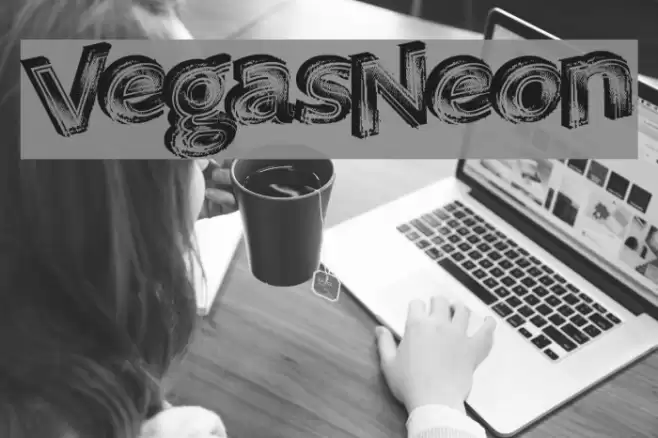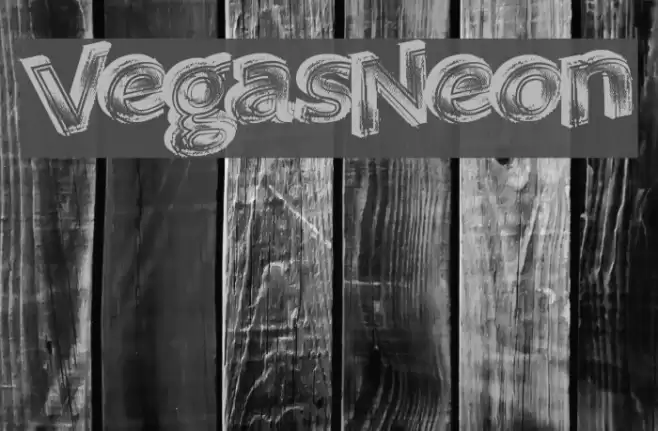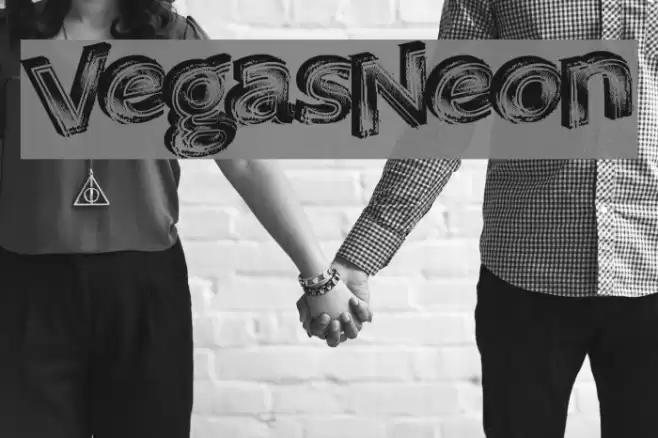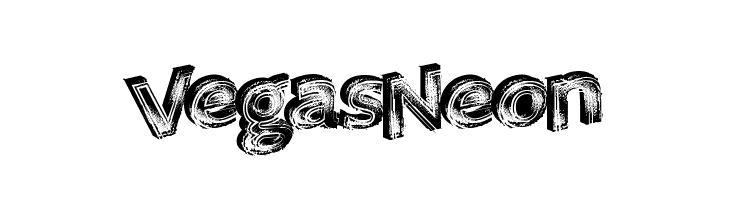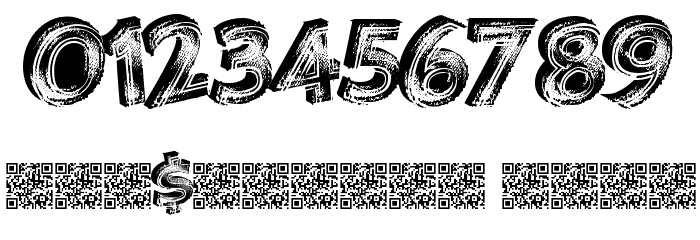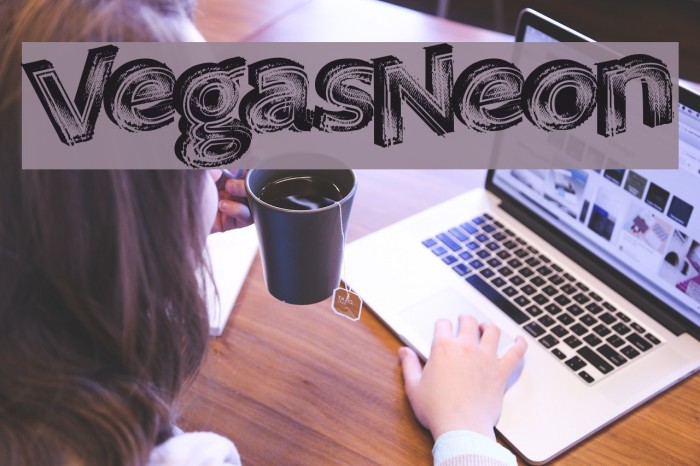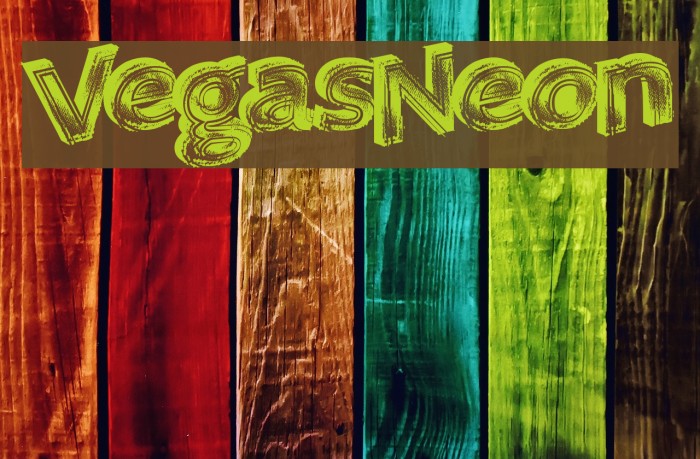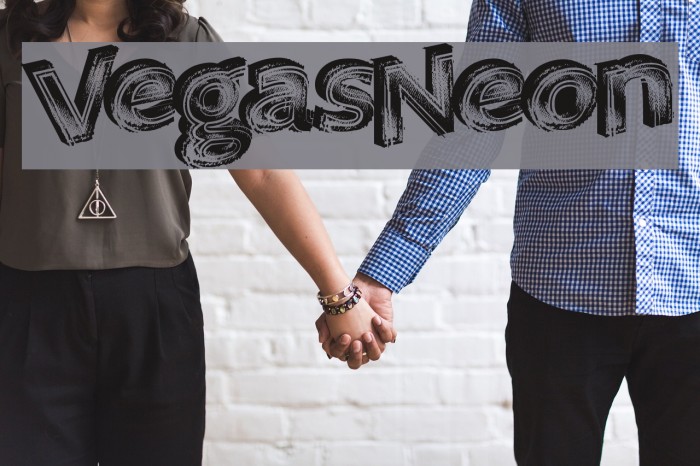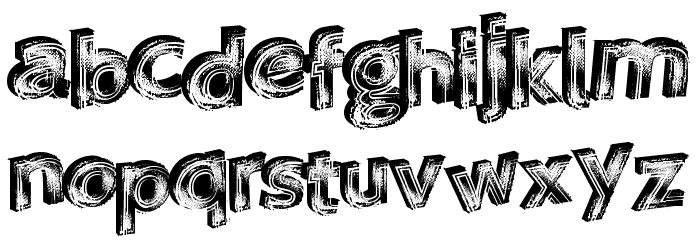
VegasNeon Font
VegasNeon Description
This font features a bold and dynamic style, reminiscent of neon lights with a textured, distressed effect. The characters are outlined with a thick, shadowed border that gives them a three-dimensional appearance. Each letter and number is uniquely crafted to convey a sense of movement and energy, making it ideal for eye-catching designs. The font's playful and vibrant aesthetic is perfect for projects that require a touch of retro flair or a lively, urban vibe. Its distinctive look is both modern and nostalgic, capturing the essence of vintage neon signage.
A bold, textured font with a neon-inspired, retro aesthetic from Distorted Eroded fonts.
- Proposed Projects: Ideal for posters, signage, branding, and any project needing a vibrant, retro look.
- Overall Style: Retro, Decorative